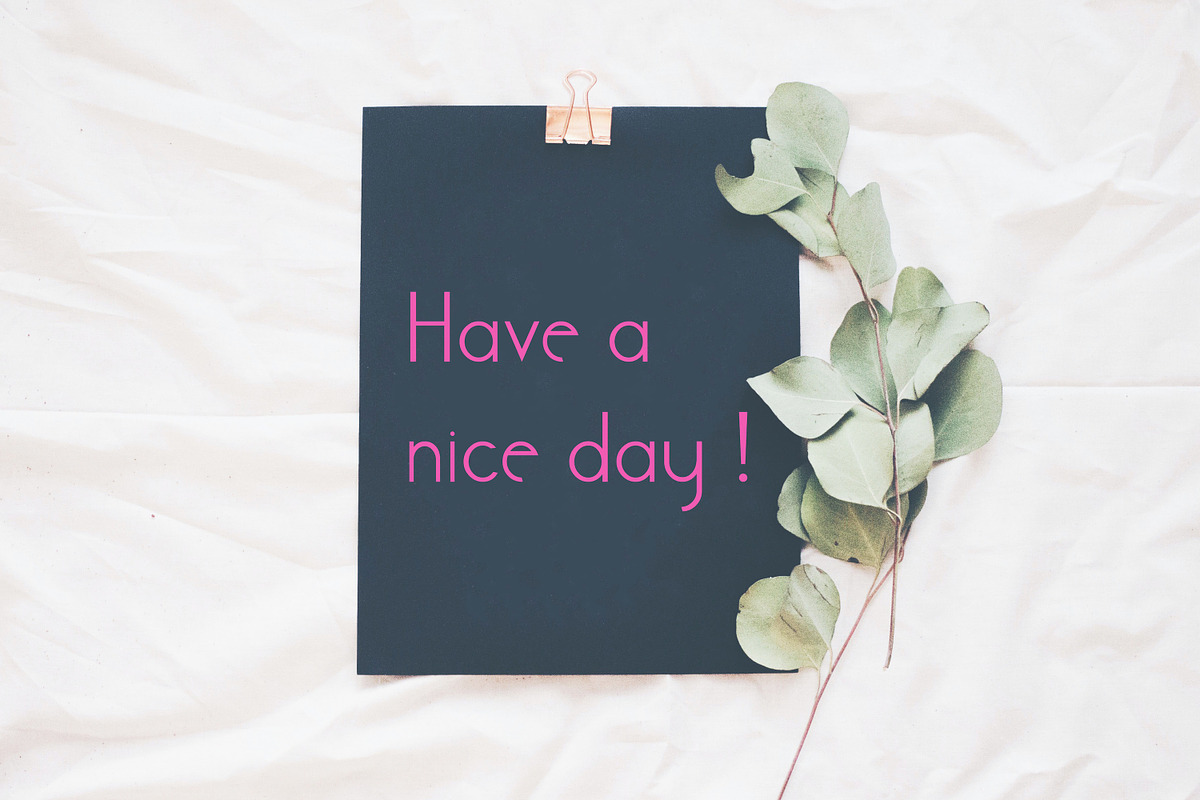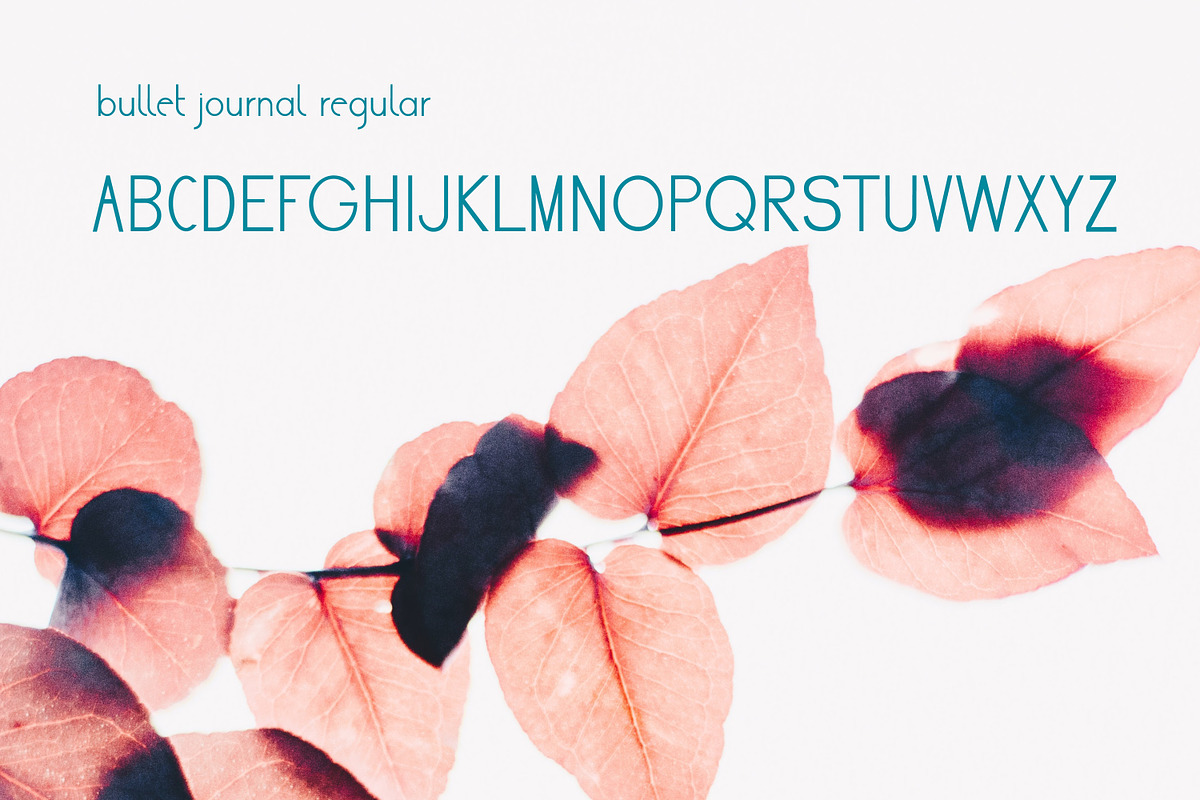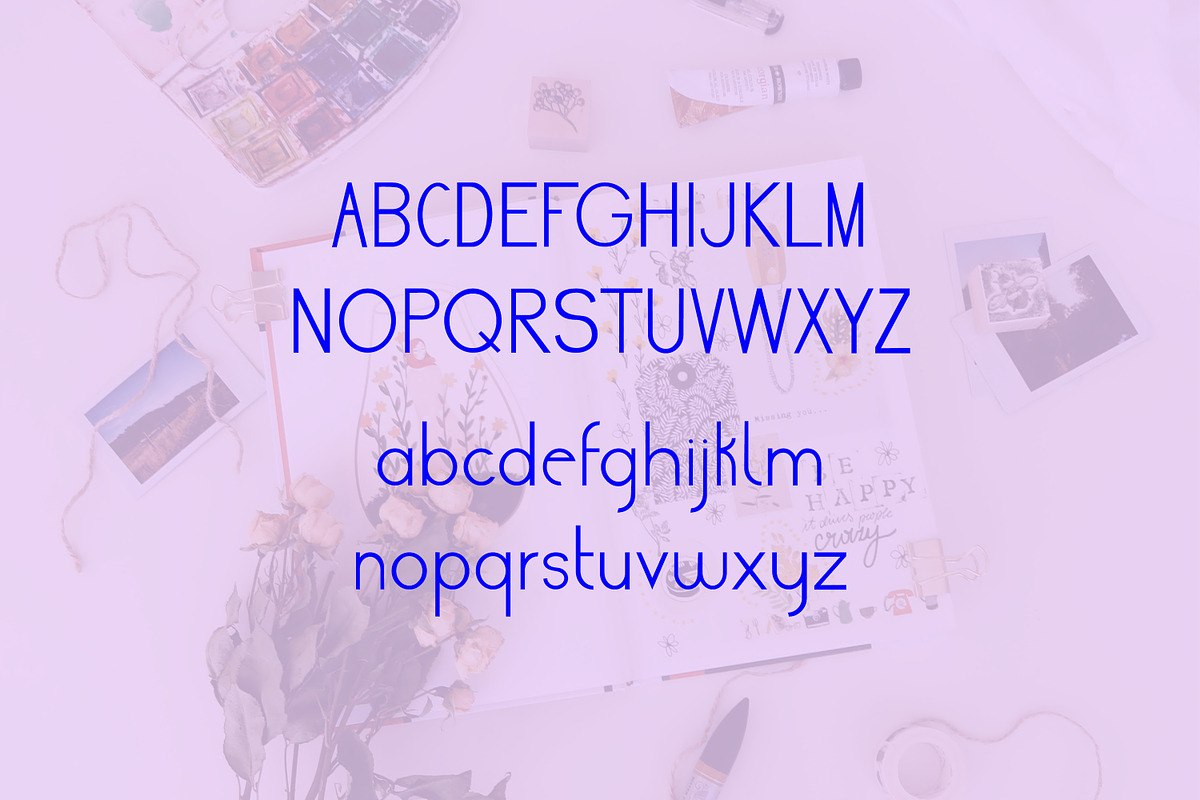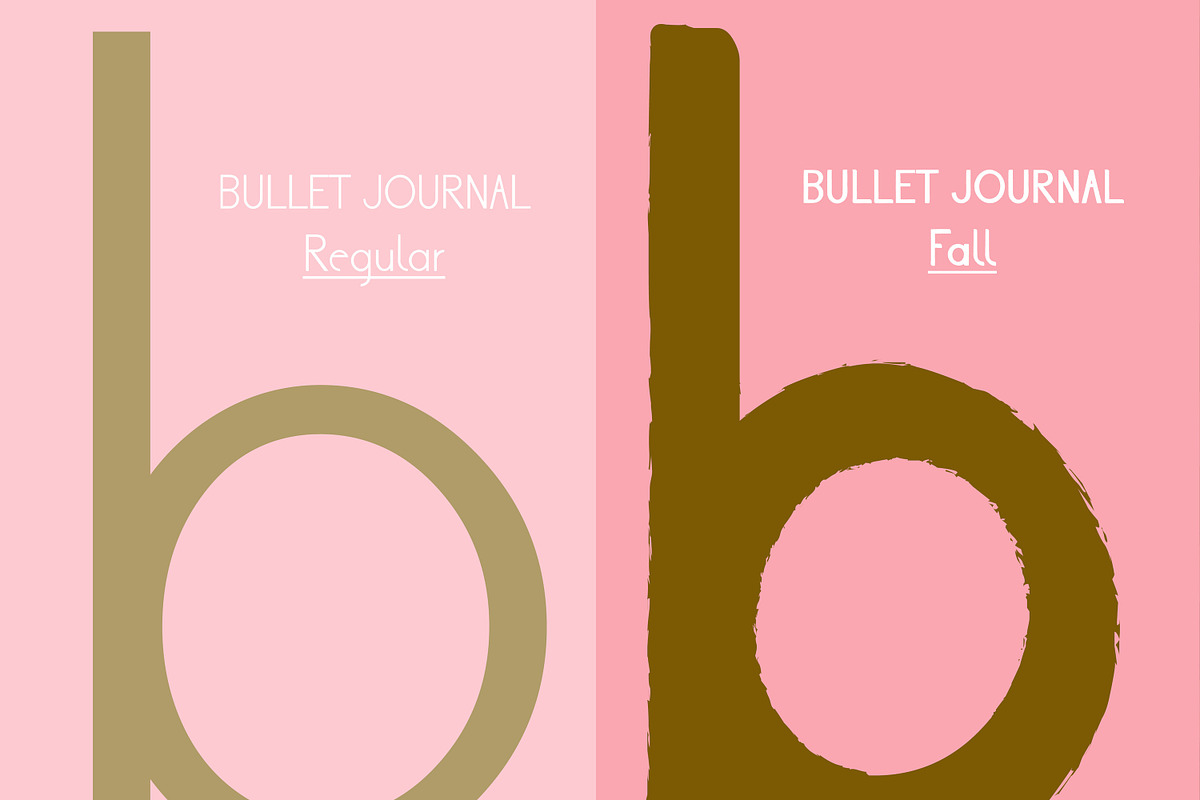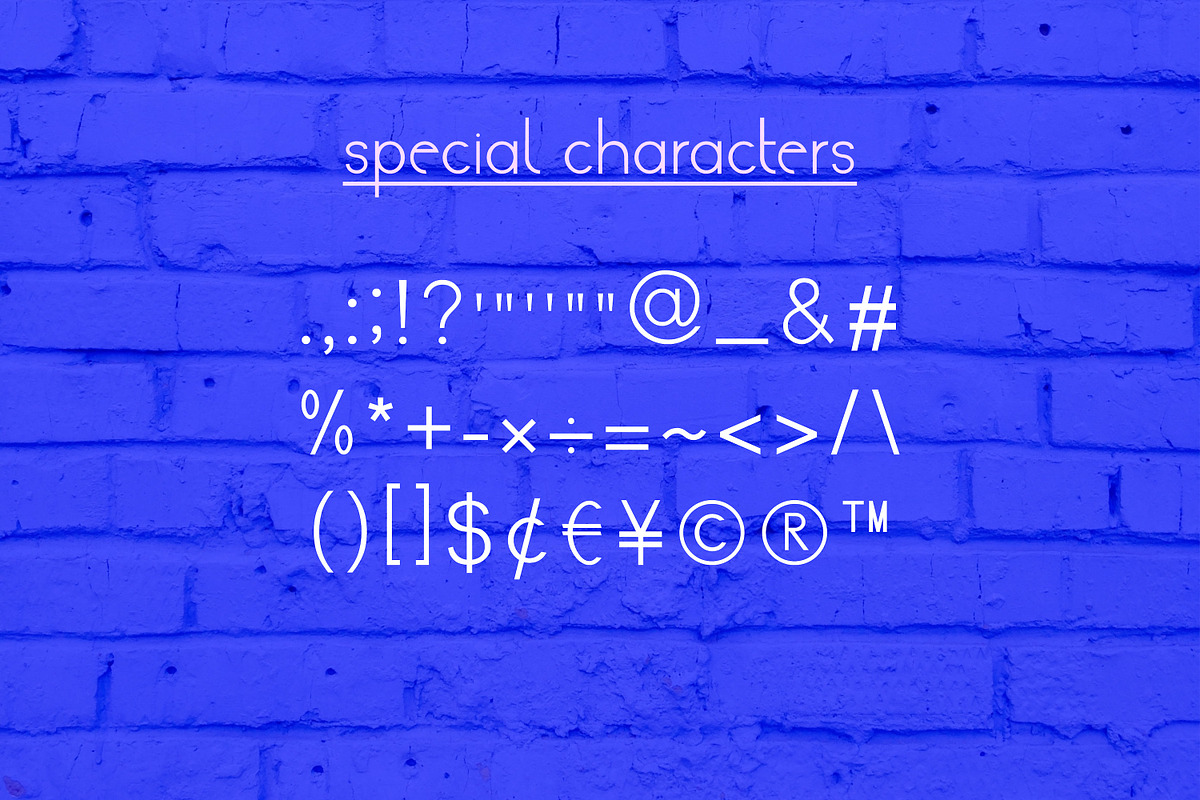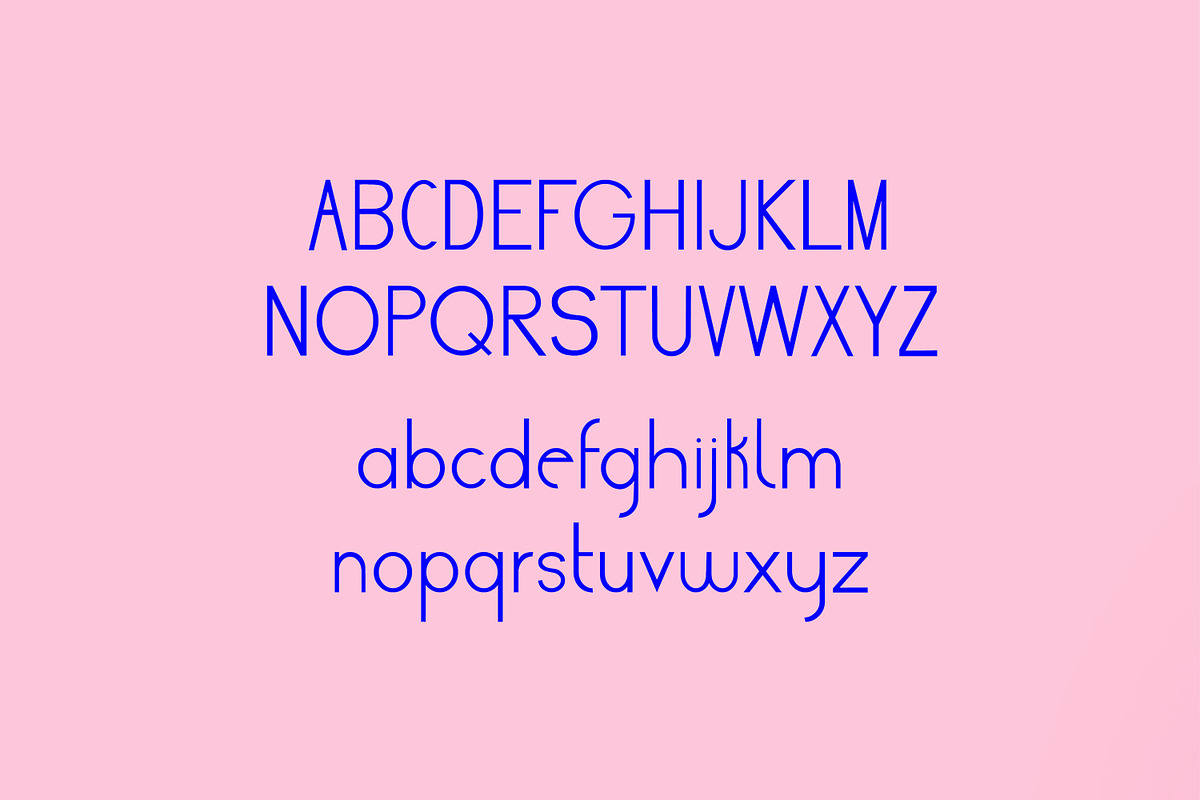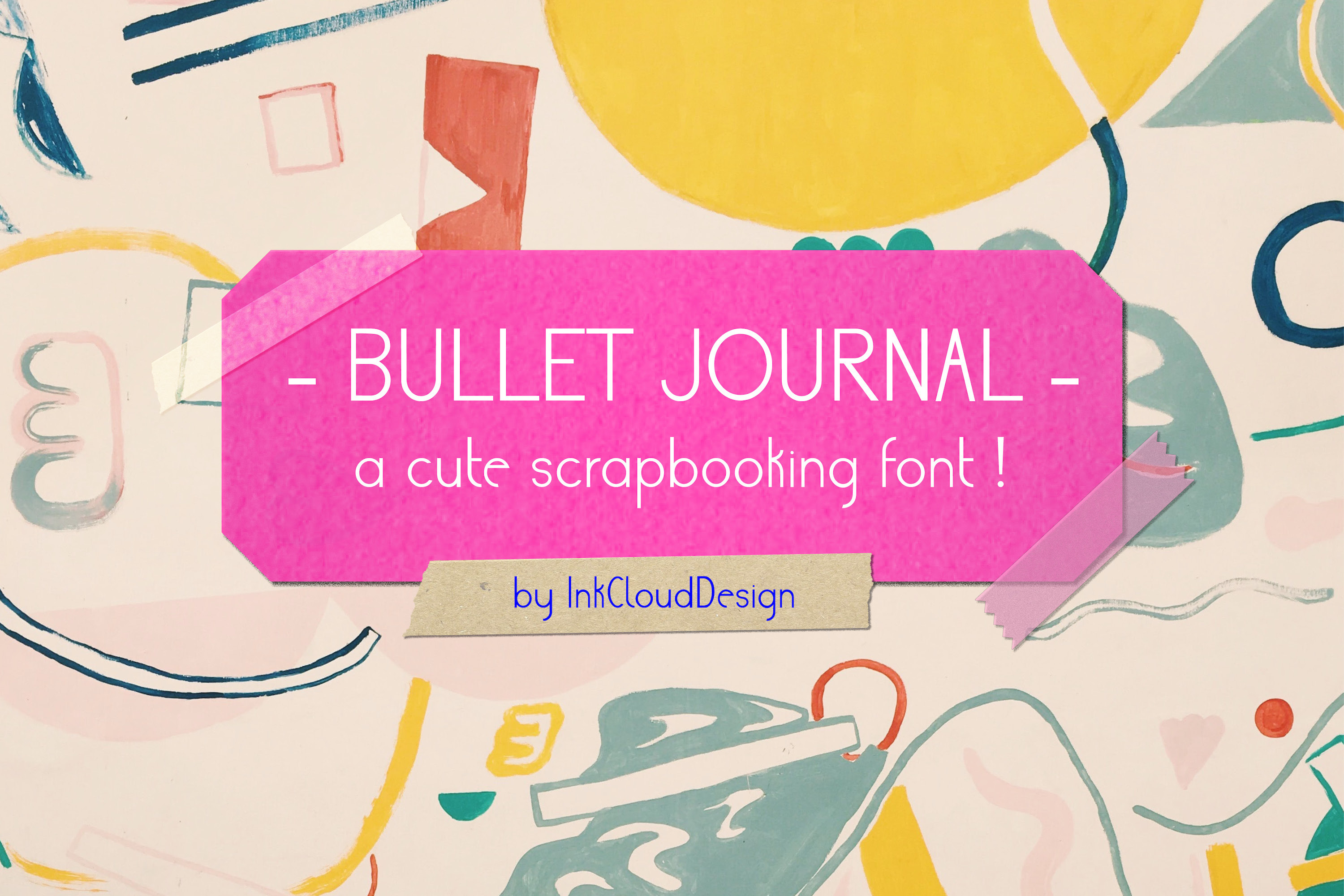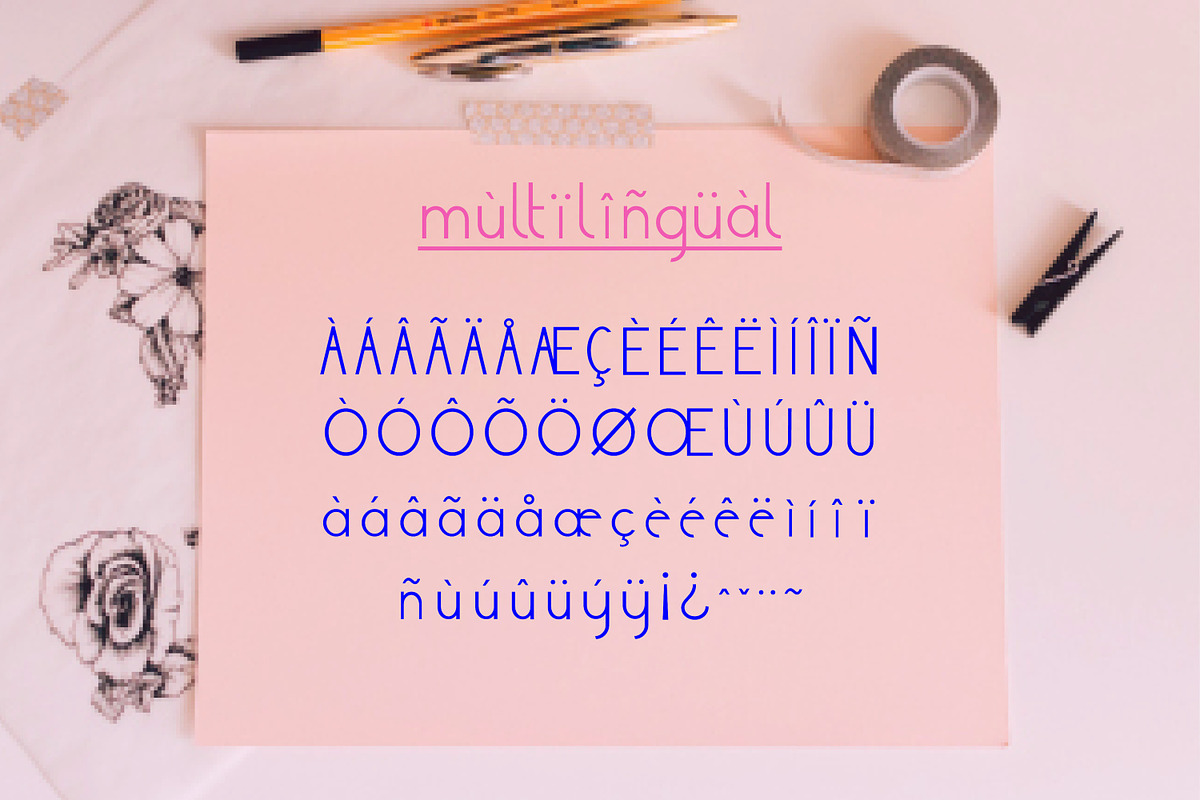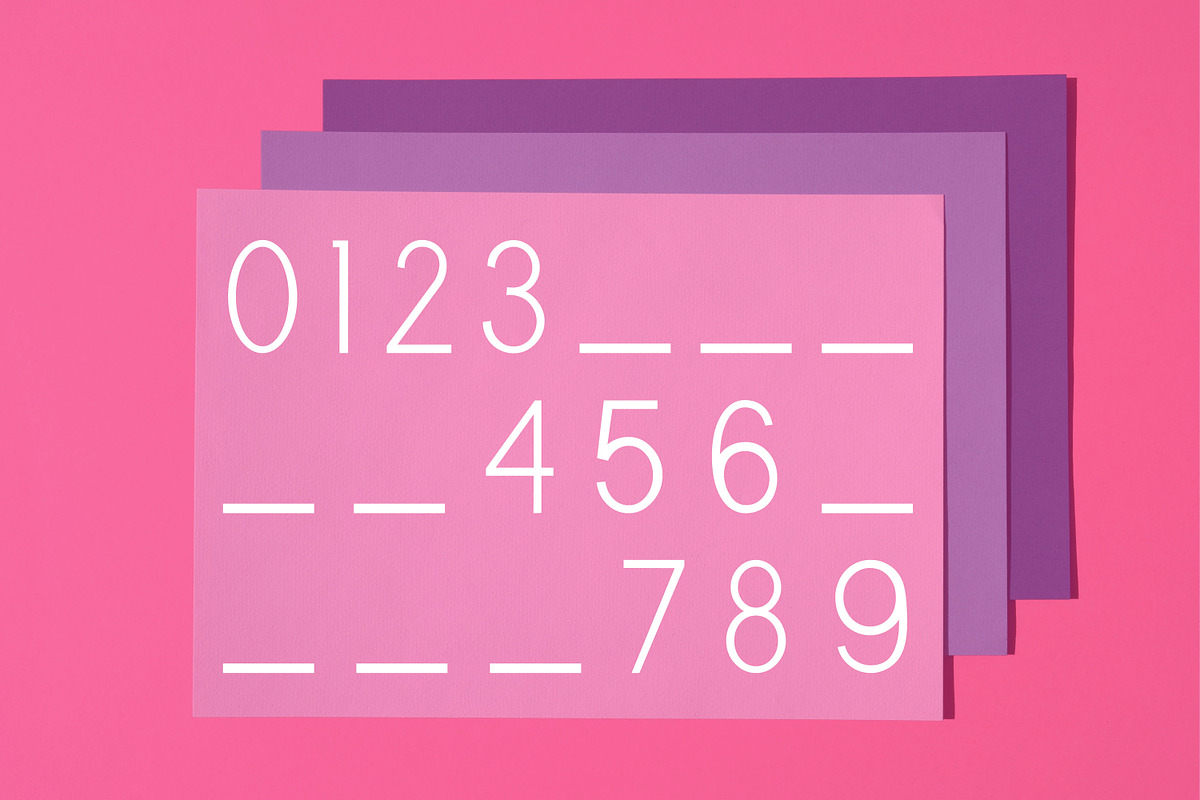
Craft Sans Serif Bullet Journal Font
Cute Sans Serif Bullet Journal Font | Modern Scrapbooking
"Bullet Journal" is a cute scrapbooking font ! Get inspired by its unique feel, and add a warm and friendly feel to any design idea.
"Bullet Journal" comes in lowercase and uppercase, numbers, special characters & multilingual characters. You can see all the glyphs displayed in the preview images above.
For example, you can use this font for:
- typography designs
- text on illustrations
- print text on various objects such as cards, mugs, t-shirts, notebooks, wallpaper, wedding invitations, birthday cards, etc & more !